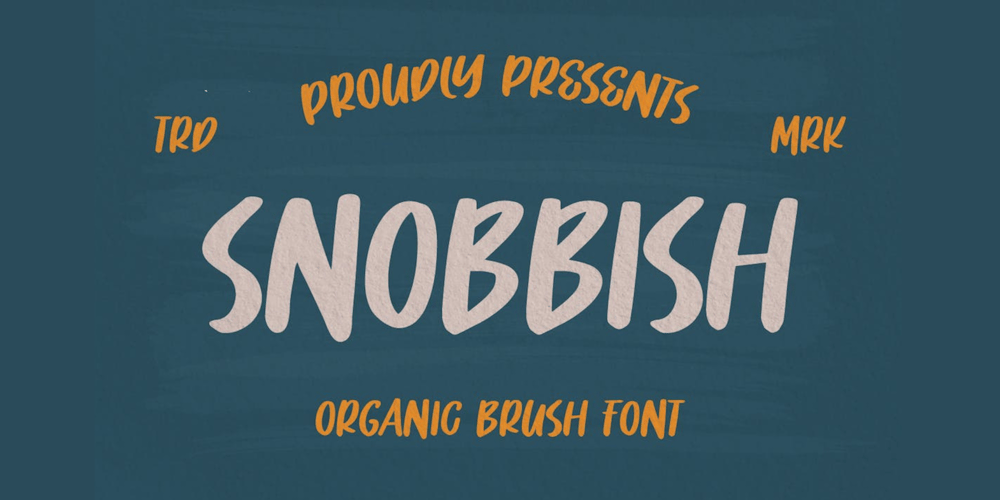
Snobbish Font Family was designed by Irpan Maulana and published by Create Big Supply. Snobbish contains 1 styles and family package options. Designed with an organic brush style, this font adds a touch of uniqueness to your projects. Although Snobbish is an all-uppercase font, its distinctive character sets it apart, allowing you to explore endless possibilities.With Snobbish, you have access to both uppercase and lowercase letters, numbers, and punctuations, providing flexibility in your designs. Express yourself in various languages, as Snobbish offers multilingual support, enabling you to reach a global audience.This purchase includes TTF, OTF, and WOFF font files, ensuring compatibility across different platforms and software. The font is PUA encoded, allowing easy access to all its features and ensuring a seamless design experience.Character Sets: Snobbish encompasses a wide range of characters, including symbols, accents, and special characters. Let your imagination run wild and create visually stunning compositions that leave a lasting impression.Unleash your creativity with Snobbish and elevate your designs to new heights. Whether you’re working on branding, logos, invitations, or any other artistic project, Snobbish is the perfect choice for adding a touch of organic charm.